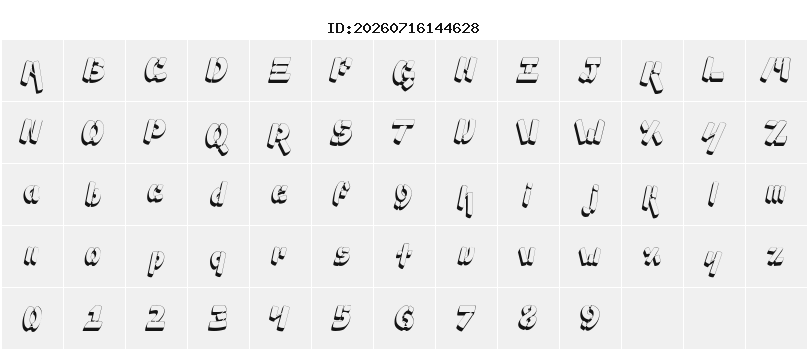
Ampad 3D2 Preview
• Font Name: Ampad 3D2
• Full Font Name: Ampad 3D2 Regular
• PostScript Name: Ampad3D2-Regular
• Designer: Gene Gilmore
About Ampad 3D2.ttf
Ampad 3D2.ttf is a modern, elegant sans-serif font designed for ultimate readability and visual harmony. Perfect for branding, headlines, web design, and print materials.